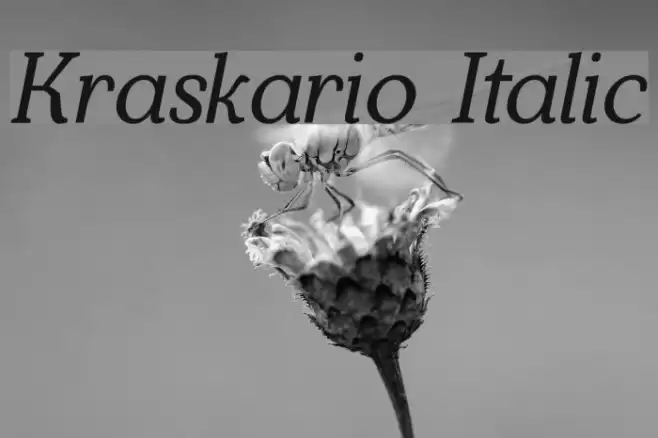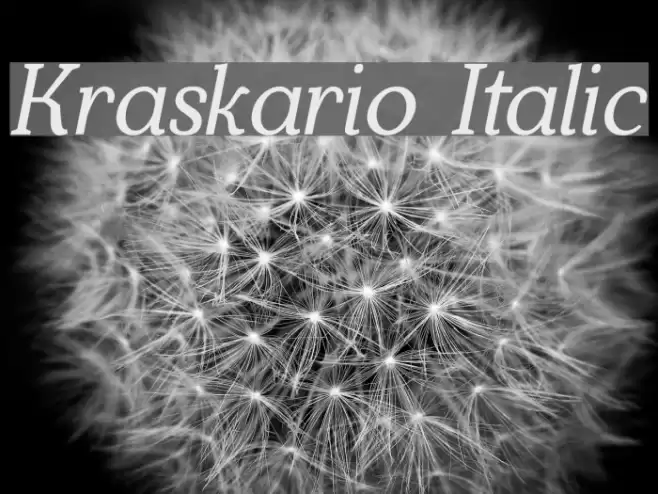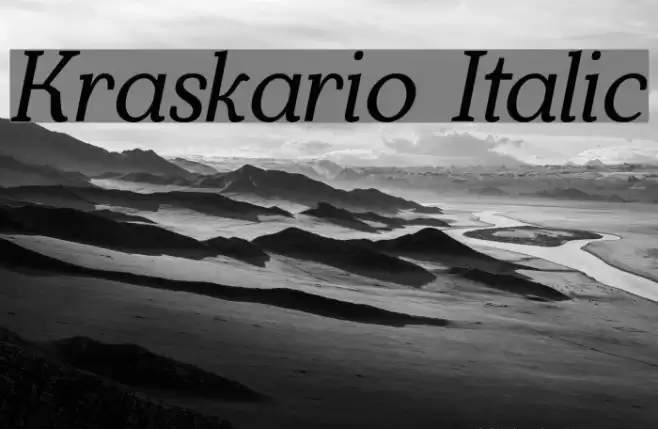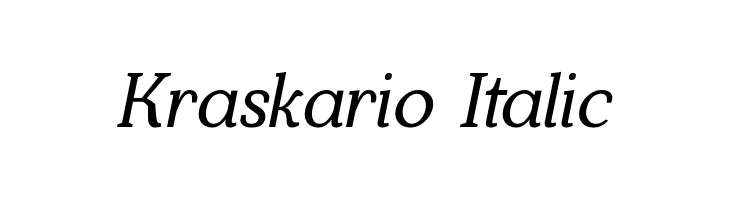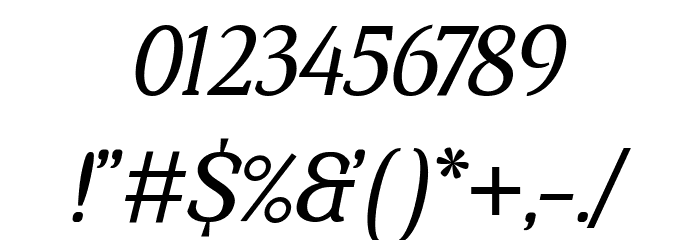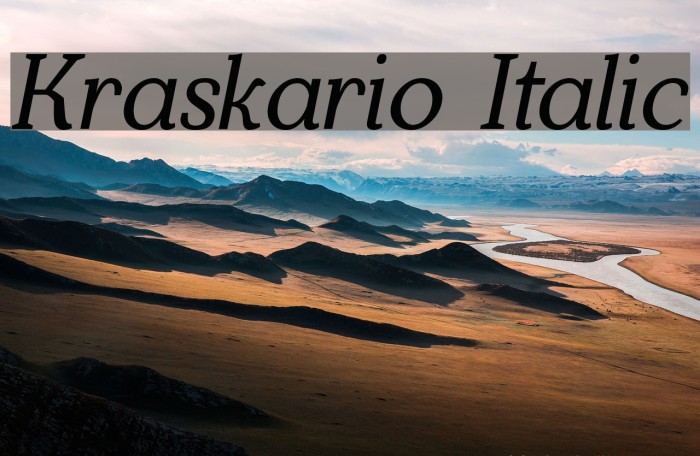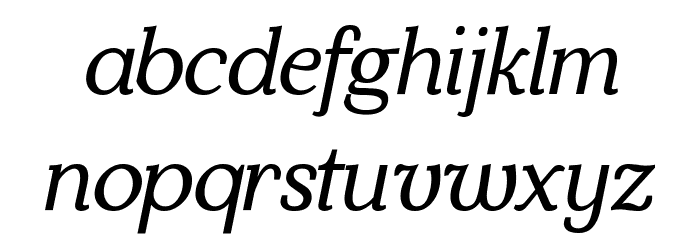
Kraskario Italic Font
Kraskario Italic Description
This font exhibits a classic and elegant style with a slight slant, indicative of its italic nature. The characters are well-defined with smooth curves and a moderate stroke contrast, giving it a refined appearance. The uppercase letters are tall and stately, while the lowercase letters maintain a consistent flow, enhancing readability. The numerals are clear and distinct, matching the overall sophisticated aesthetic. Special characters are thoughtfully designed, complementing the letterforms. This font is suitable for projects that require a touch of elegance and formality.
An elegant italic font with smooth curves and moderate contrast from Serif fonts.
- Overall Style: Classic